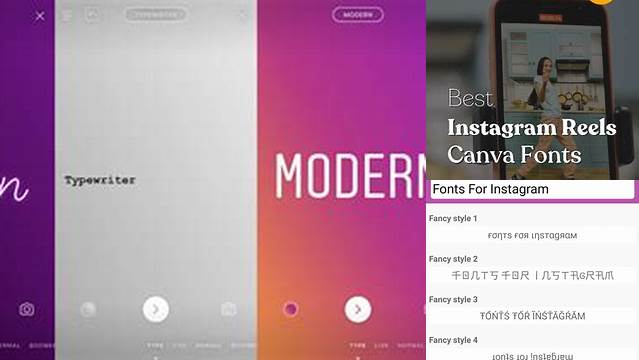
Cool Fonts For Instagram: Level Up Your Feed!
Hey guys! Want to make your Instagram posts pop? Using creative fonts can seriously level up your game. Forget those boring default fonts – let’s dive into how you can use awesome fonts to grab attention, express your personality, and make your content stand out from the crowd. Let's get started!
Why Use Creative Fonts on Instagram?
Using creative fonts on Instagram is more than just a fun aesthetic choice; it's a strategic move to enhance your brand and message. Think about it – your font is one of the first things people notice. A unique font can capture attention instantly, making someone pause and actually read your post instead of just scrolling by. Moreover, different fonts evoke different emotions and associations. A playful, handwritten font can make your brand seem approachable and friendly, while a sleek, modern font can convey sophistication and professionalism. This helps you communicate your brand's personality more effectively.
Consistency is key when branding, and using the same creative font across your Instagram profile helps build a cohesive visual identity. This makes your profile instantly recognizable and reinforces your brand in the minds of your followers. Plus, by using fonts that align with your brand's values, you can subtly reinforce the message you're trying to convey. For example, an eco-friendly brand might use a font that feels natural and organic. When you use creative fonts strategically, you're not just making your Instagram feed look good; you're building a stronger, more memorable brand.
1. Understanding Instagram Font Limitations
Okay, so before we jump into the fun stuff, let’s talk about Instagram's limitations. Instagram doesn't actually let you upload custom fonts directly into the app for captions or bio text. Bummer, right? But don't worry, there are plenty of workarounds! What you see in people’s profiles that look like creative fonts are actually generated using Unicode characters. Basically, they're symbols that resemble letters in different styles. This is why you can copy and paste these fonts from other apps and websites into Instagram.
Knowing this limitation is super important because it affects how you find and use these creative fonts. You're not installing anything new on Instagram itself. Instead, you're using external tools to generate text in fancy styles, and then copying that text over. Also, keep in mind that some older devices or browsers might not display all Unicode characters correctly, so your font might look a little different to some viewers. Understanding these limitations helps you manage your expectations and ensures you're using fonts that will look good for the majority of your audience. So, while Instagram doesn’t make it easy, it’s definitely doable with the right tools and a little bit of know-how!
2. Popular Font Generator Websites
Alright, let's get to the good stuff! There are tons of awesome font generator websites out there that make creating creative fonts for Instagram super easy. Some popular ones include LingoJam, Cool Fancy Text Generator, and FontGet. These websites are user-friendly – you just type in your text, and they generate a bunch of different font options for you to choose from. You can scroll through the list, find the one you like, and then copy and paste it directly into your Instagram bio, caption, or comments.
Each of these sites offers a slightly different selection of fonts, so it's worth checking out a few to see which one has the styles you like best. Some also offer additional customization options, like different symbols or decorations you can add to your text. Keep in mind that while these generators are free to use, they sometimes have ads, so just be mindful of that. Also, double-check how the font looks on your device before posting to make sure it displays correctly. These font generator websites are a game-changer for adding some personality to your Instagram, so definitely give them a try!
3. Best Font Styles for Instagram Bios
Your Instagram bio is like your digital business card, so choosing the right creative font is essential. For bios, you want something that's easy to read and reflects your personal or brand style. Simple sans-serif fonts like a clean, modern font can convey professionalism and clarity. If you want something a bit more unique, try a slightly stylized font, but make sure it's still legible. Remember, people should be able to quickly understand who you are and what you do.
Avoid overly ornate or script fonts for your entire bio, as they can be hard to read, especially on smaller screens. Instead, consider using a creative font for your name or a short tagline to add a touch of personality without sacrificing readability. Also, keep in mind the overall aesthetic of your profile. Your bio font should complement your photos and color scheme. Think of it as part of your overall branding. By carefully selecting a font style, you can make a great first impression and encourage people to follow you!
4. Enhancing Captions with Unique Fonts
Captions are where you really get to engage with your audience, so using creative fonts here can make a big difference. A well-chosen font can emphasize important points, highlight keywords, or simply add a touch of flair to your posts. For example, if you're announcing a sale or promotion, using a bold or eye-catching font can draw attention to the details. Or, if you're sharing a personal story, a handwritten font can create a more intimate and relatable feel.
Kerning and tracking are two important typographic principles that affect the readability and visual appeal of your fonts. Kerning refers to the spacing between individual letters, while tracking refers to the overall spacing between all the letters in a word or phrase. Adjusting kerning and tracking can improve the readability of your fonts and create a more polished and professional look.
Most design software programs allow you to adjust kerning and tracking. When adjusting kerning, pay attention to the spacing between letters that tend to have awkward gaps, such as